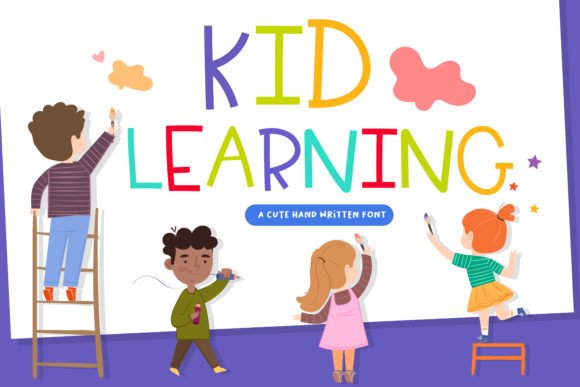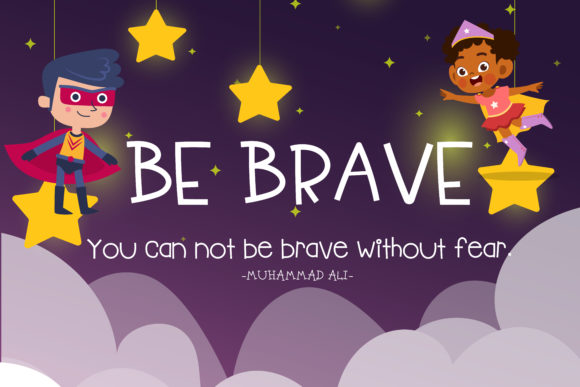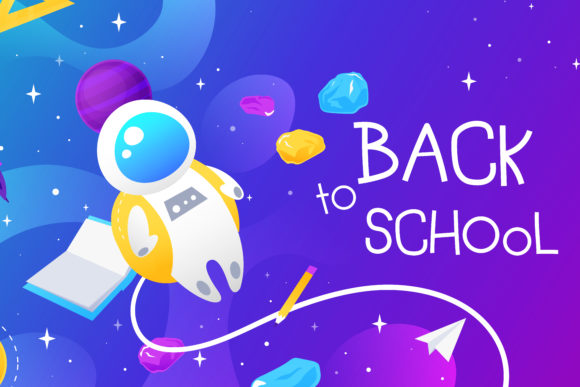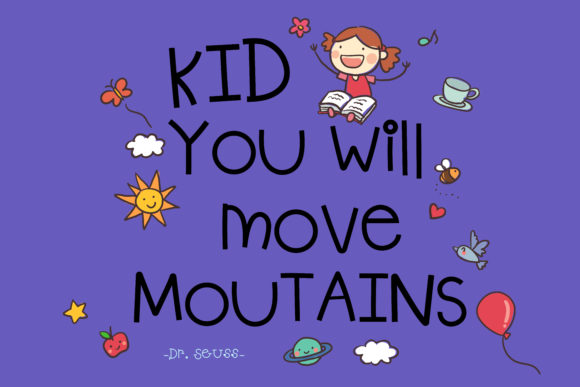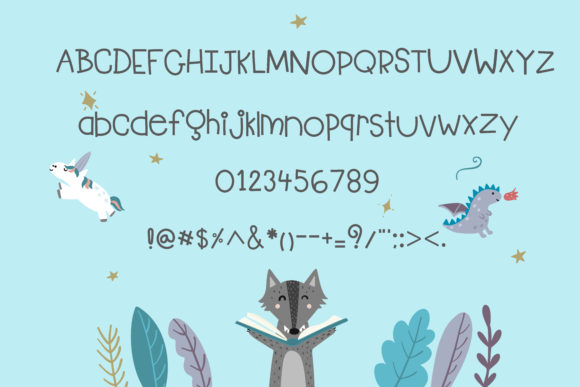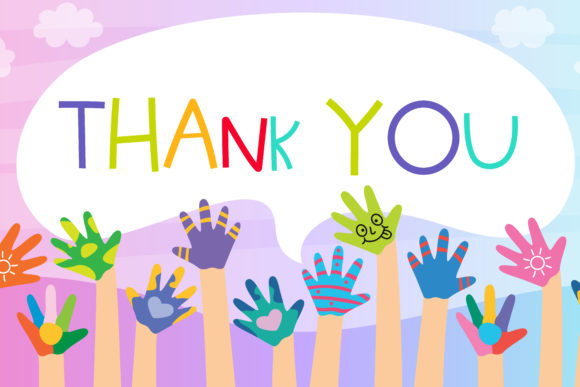
Discover the Joy of Handwritten Creativity with Kid Learning Font
As a designer, there’s nothing quite like the thrill of bringing a new idea to life. Maybe it’s a birthday card for a loved one, a custom t-shirt for a special occasion, or a whimsical illustration for a children’s book. Whatever the project, it’s the little details that make it truly special – and that’s where the Kid Learning Font comes in.
This charming, new handwritten font is designed to capture the carefree spirit of childhood, making it the perfect addition to any design project that requires a touch of whimsy. Whether you’re working on a greeting card, a fashion design, or just experimenting with a new concept, the Kid Learning Font is sure to add a personal, handmade feel to your work. With its playful, handwritten style, this font is a valuable tool for designers looking to add a touch of kid-friendly charm to their projects.
Kid Learning Font Key Features
- Unique Character Set: The Kid Learning Font features a set of characters specifically designed for children, including alphabet letters, numbers, and symbols that are easy to read and recognize.
- Font Styles: The font comes in a range of styles, including bold, italic, and regular, making it versatile for various applications.
- Size: The font is available in multiple sizes, ranging from 8 points to 72 points, allowing for flexibility in design and layout.
- Resolution: Designed to be clear and legible at resolutions of up to 300 DPI, making it suitable for printing and digital displays.
- Customizable: The font can be customized to fit specific design needs, including color, size, and style, allowing for a high degree of creative control.
Designer Review: Kid Learning Font
Overall, I was excited to dive into the Kid Learning Font, hoping to find a fun and engaging typeface for kids’ educational materials. While it has some great qualities, it also comes with some limitations that make it less than ideal.
- The font’s playful, rounded edges and friendly feel immediately grab your attention. It’s perfect for creating a welcoming atmosphere for young learners.
- The font is highly customizable, allowing you to adjust the size, color, and spacing to suit your needs.
- The Kid Learning Font includes a wide range of characters, including uppercase and lowercase letters, numbers, and punctuation marks.
- The font’s design is quite simplistic, which may not appeal to older kids or adults who prefer a more sophisticated look.
- The font’s weight is relatively thin, making it difficult to read at smaller sizes or in low-light conditions.
- Lack of international character support may limit its use in multilingual educational materials.
Overall, the Kid Learning Font is a decent choice for simple, child-friendly educational materials, but its limitations may make it less suitable for more complex or high-stakes projects.
Use the Kid Learning Font to create engaging and interactive educational materials, such as worksheets, activity sheets, and educational posters.
Use the Kid Learning Font to create custom illustrations, graphics, and educational materials that require a playful and child-friendly tone.
Use the Kid Learning Font to create engaging and interactive educational presentations, worksheets, and handouts.
Some popular tips for getting the most out of the Kid Learning Font include:
- Using the font in combination with bright and playful colors to create an engaging visual experience.
- Customizing the font size and style to suit different age groups and learning levels.
- Using the font to create interactive and hands-on educational materials, such as puzzles and games.